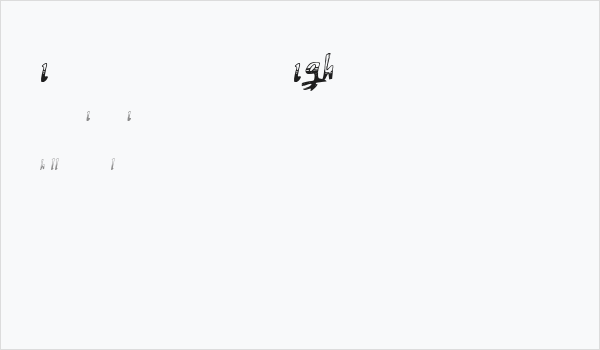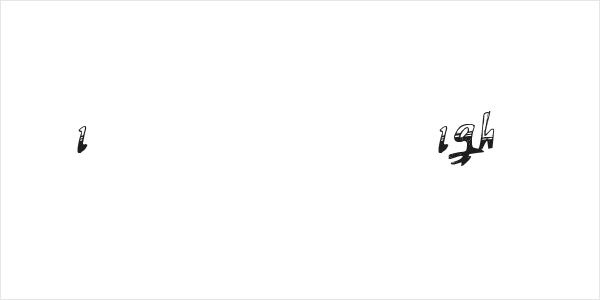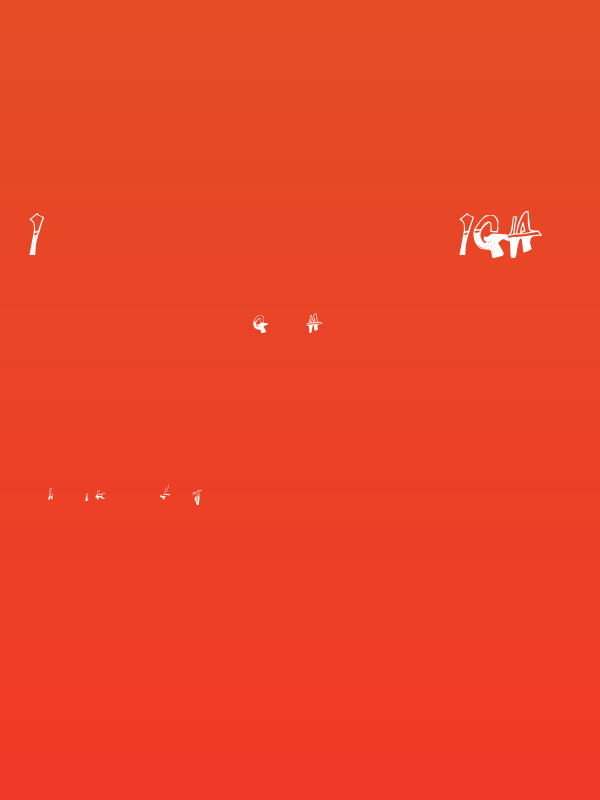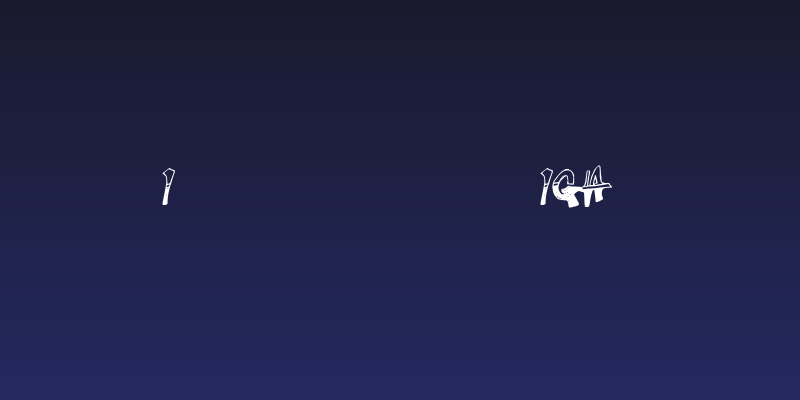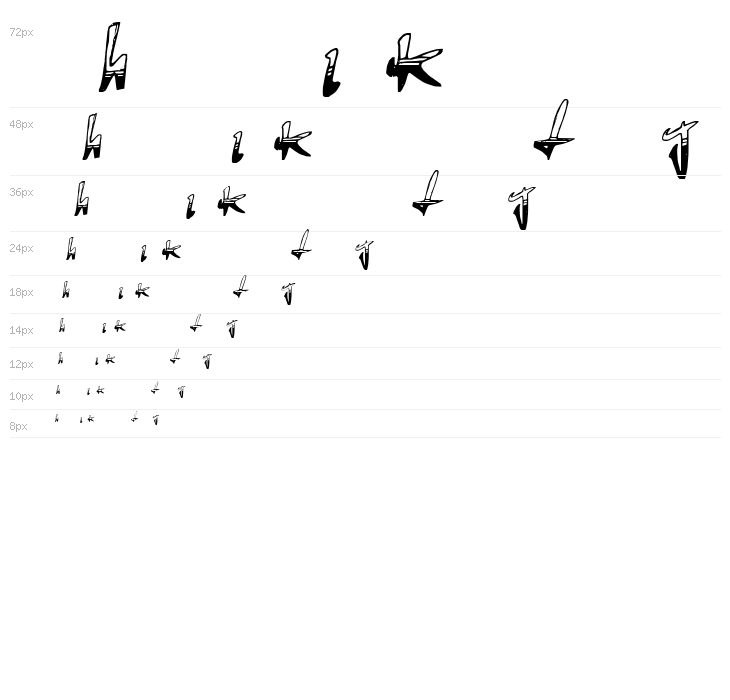
i need you tonight Font
i need you tonight Description
This font exhibits a bold, graffiti-inspired style with a dynamic and edgy appearance. The characters are irregular and feature a mix of sharp angles and smooth curves, giving them a rebellious and urban feel. The strokes are thick and varied, adding to the font's energetic and expressive nature. The letters are slightly slanted, enhancing the sense of movement and spontaneity. This font is ideal for projects that require a bold and unconventional look, such as street art, music album covers, or edgy branding materials.
| Overall Style | Urban, Rebellious |
| Use Case | Logos, Posters, Headlines |
| Proposed Projects | Street art, music album covers, edgy branding materials. |